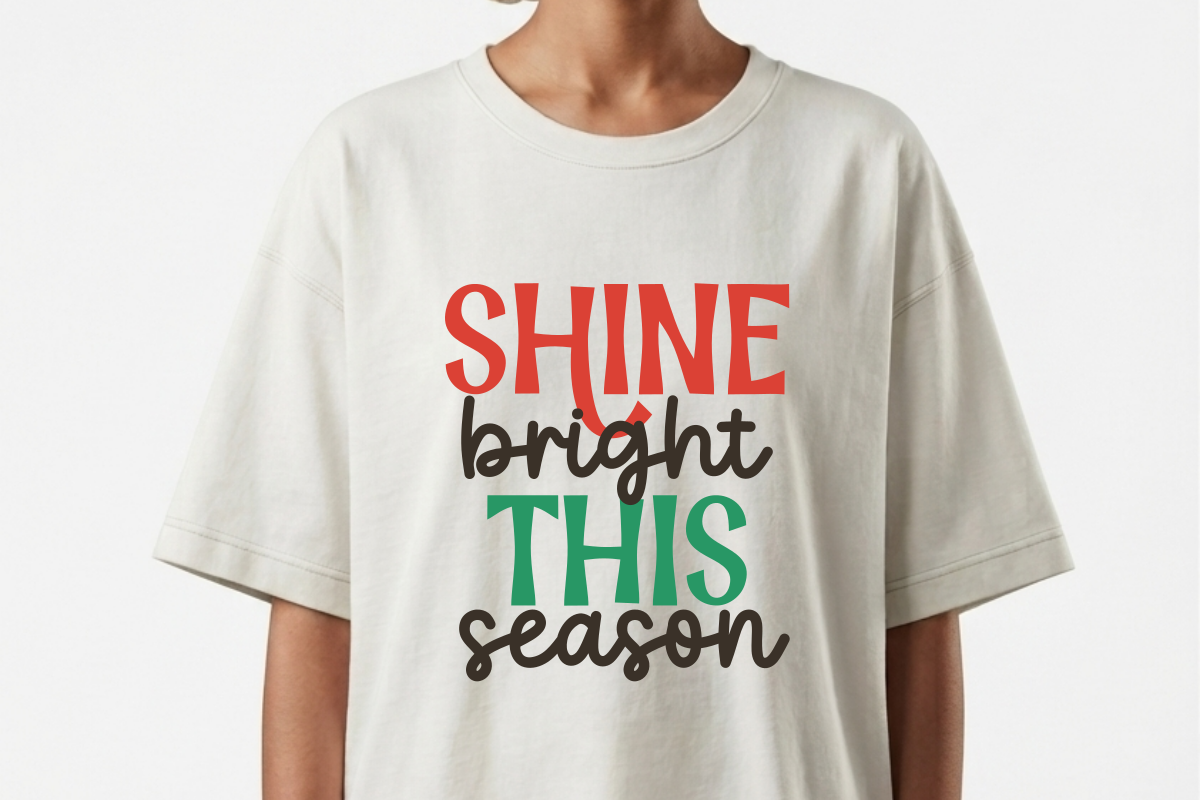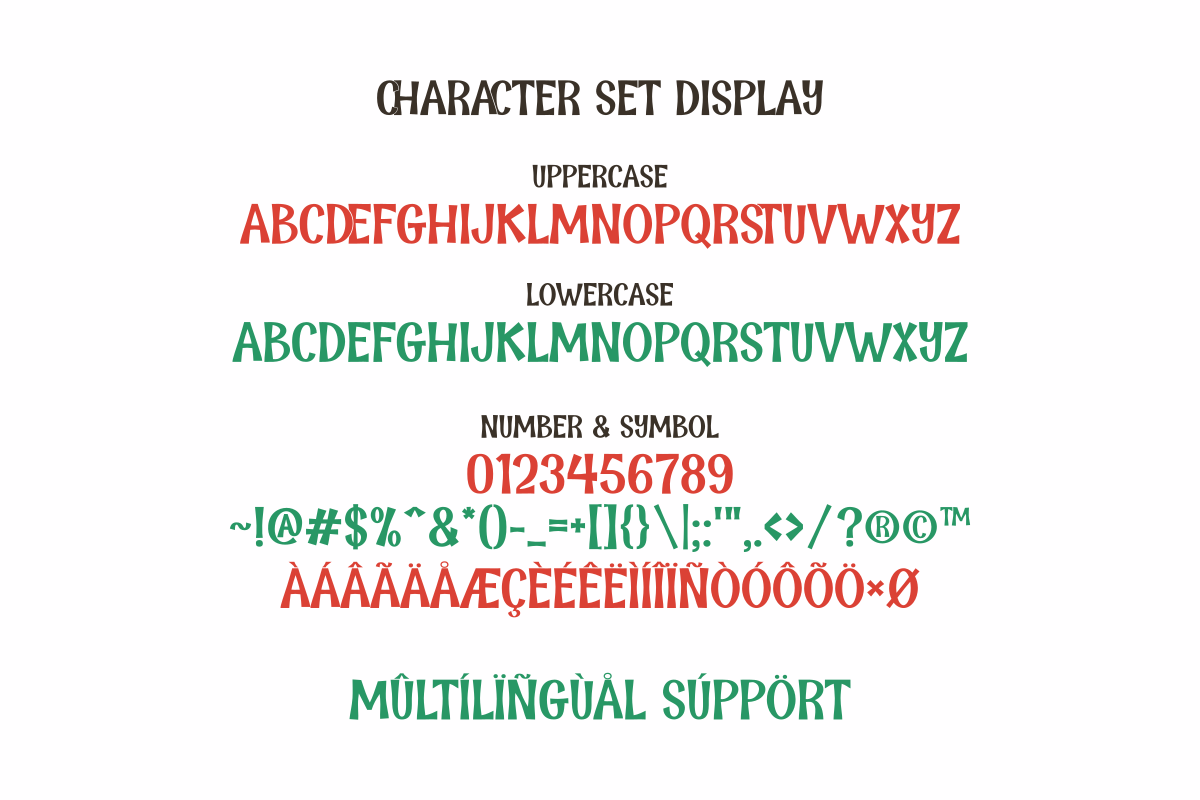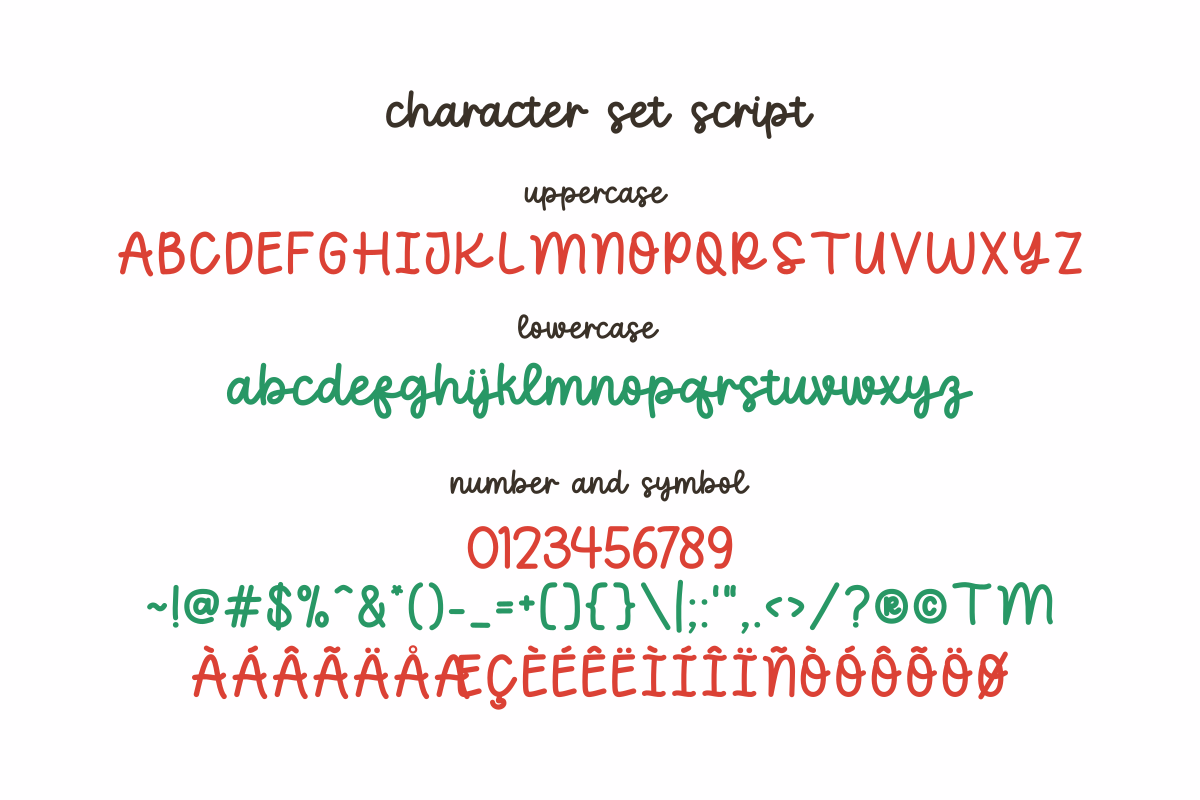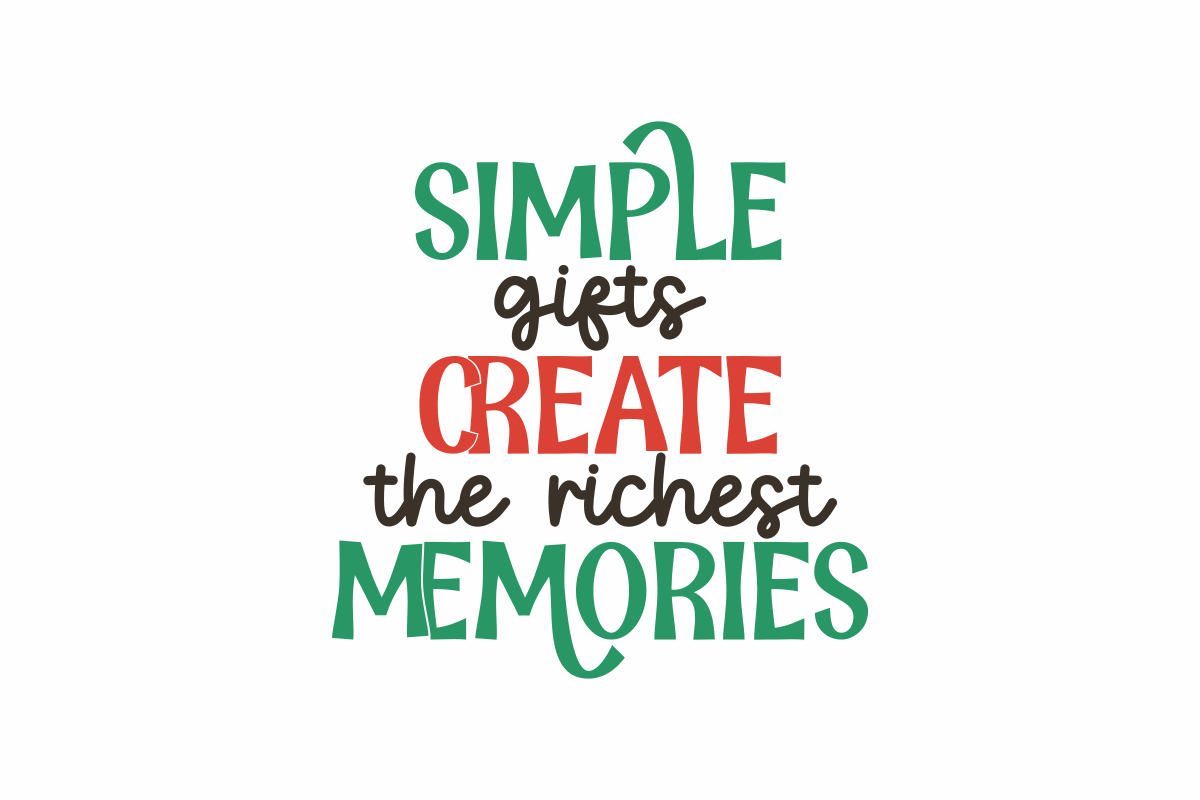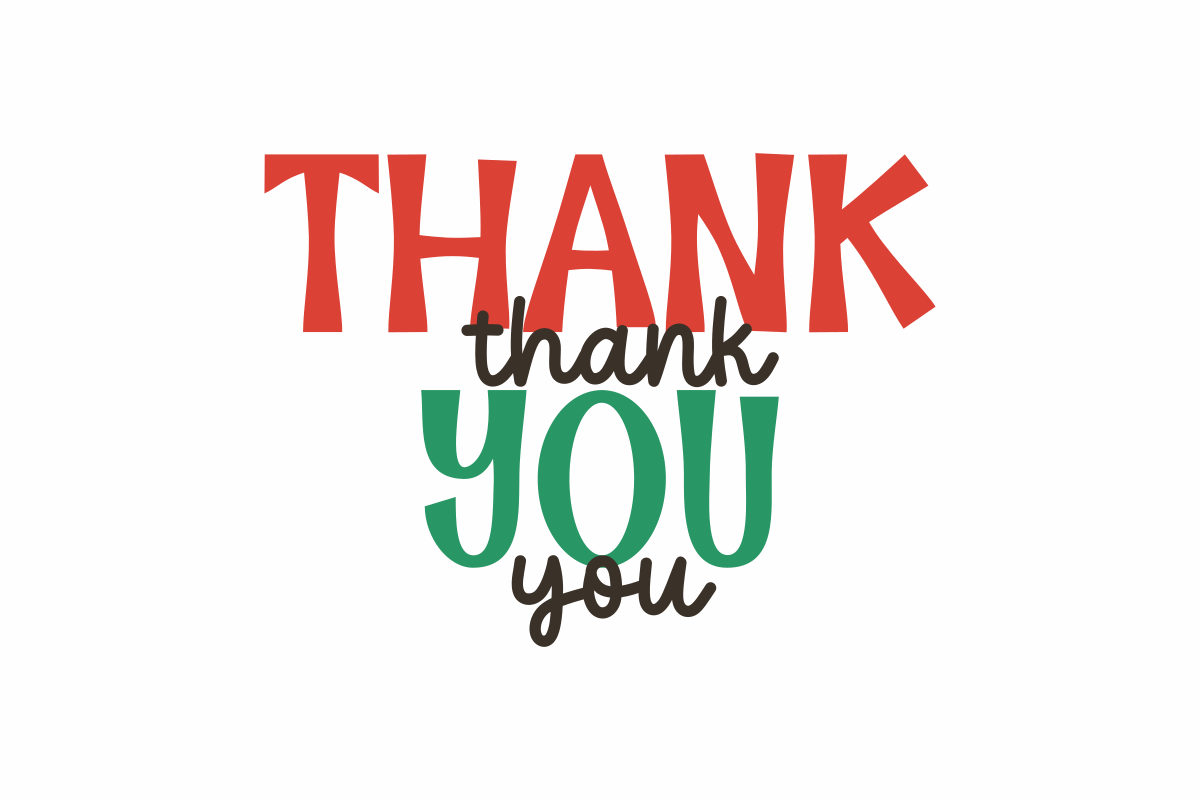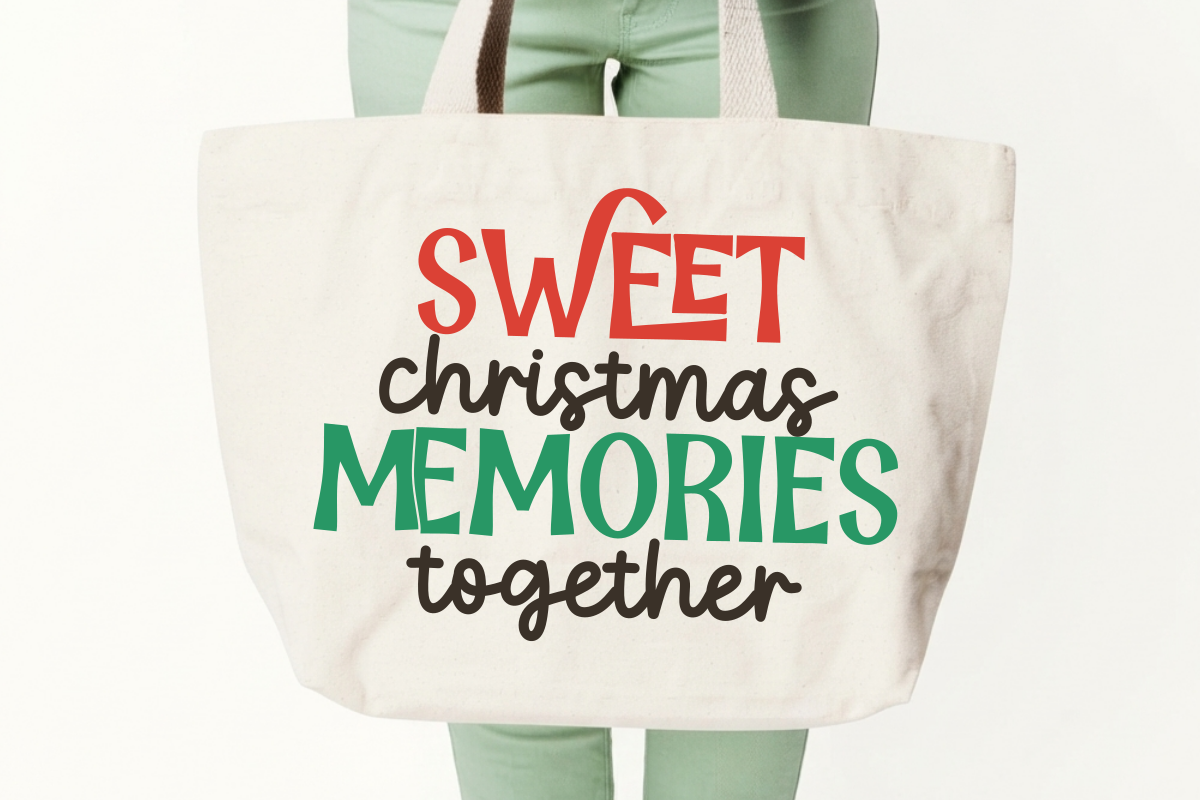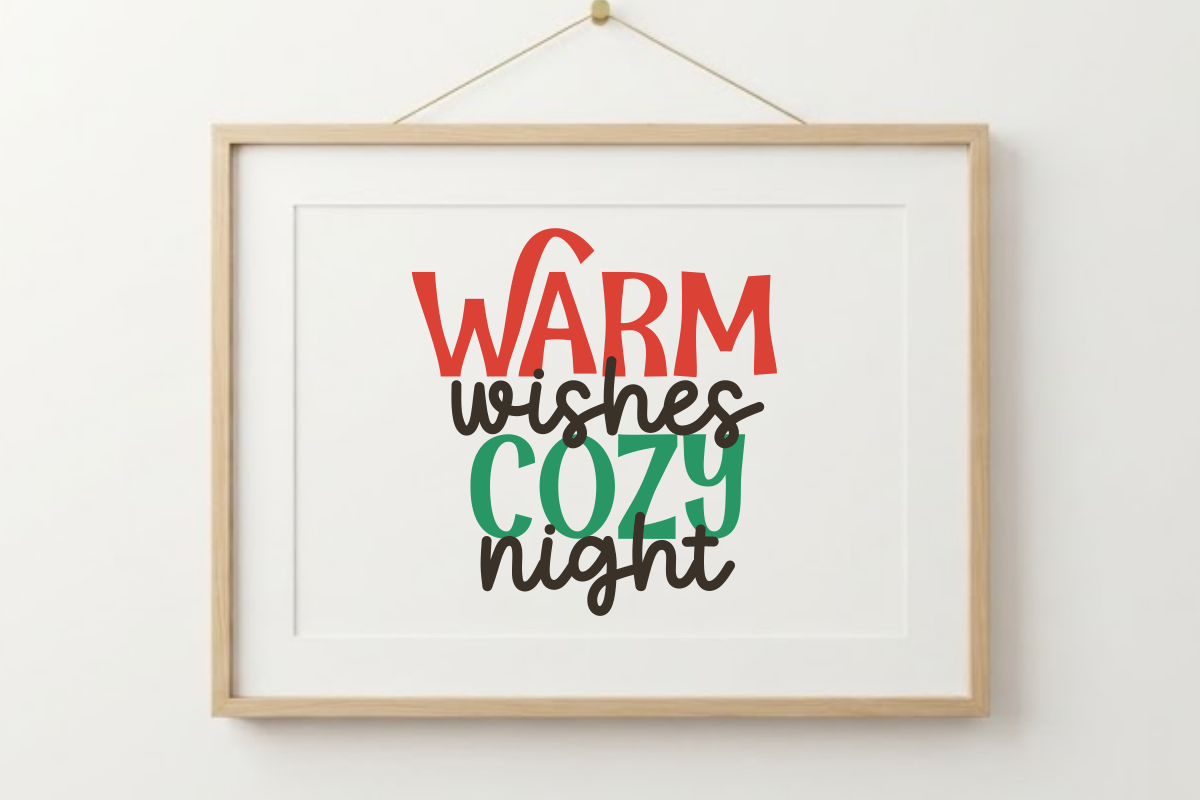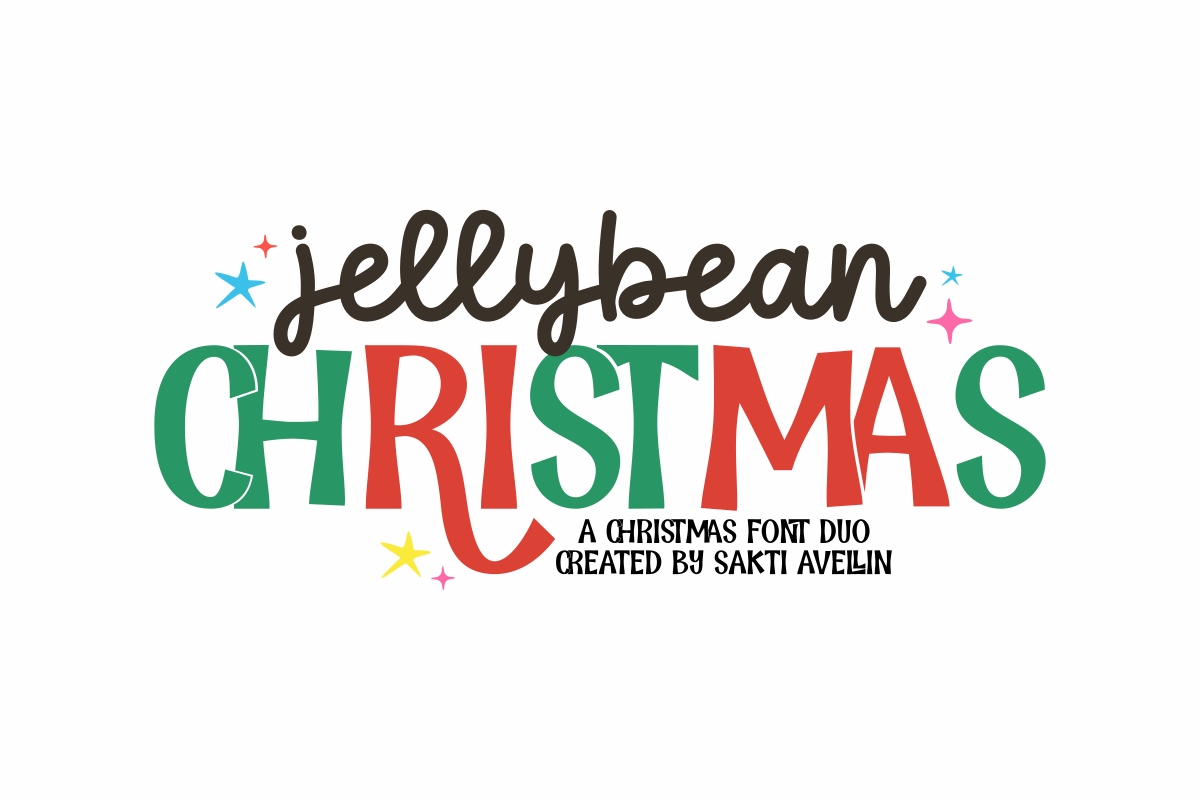
Jellybean Christmas - Font Duo
Jellybean Christmas is a festive and charming a christmas font duo designed to bring a warm, cheerful holiday energy to your creative projects. This delightful pairing features a bold, whimsical display typeface for "CHRISTMAS" and a smooth, flowing handwritten script for "jellybean," making it an ideal choice for Christmas branding, seasonal party invitations, holiday stickers, greeting cards, and cheerful social media graphics. Its balanced and organic aesthetic ensures your designs feel warm, magical, and full of personality. Whether you are creating winter merchandise, festive apparel, or playful stationery, Jellybean Christmas adds a charming touch to every design.